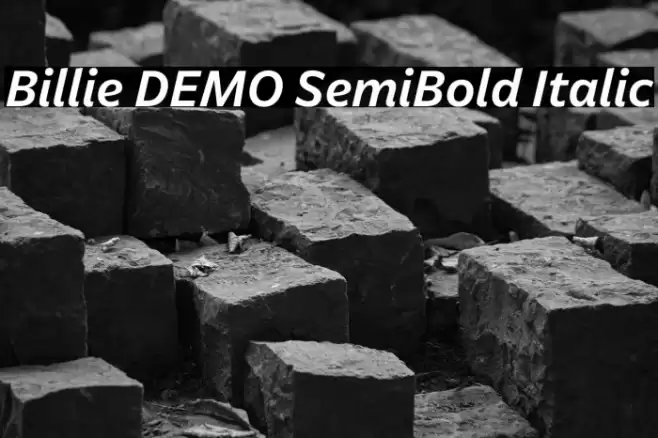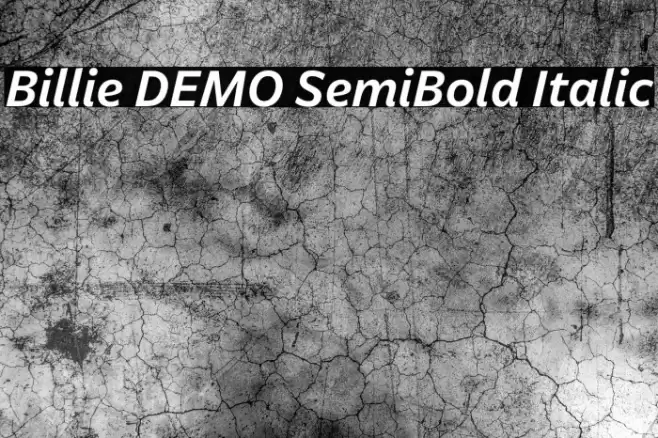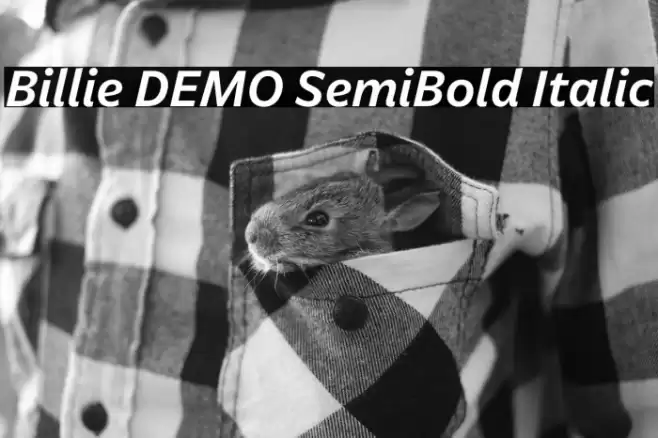
Billie DEMO SemiBold Italic Font
Billie DEMO SemiBold Italic Description
This font features a sleek and modern design with a semi-bold weight and italic style. The characters are slightly slanted, giving a dynamic and forward-moving appearance. The strokes are consistent, with medium contrast, providing a clean and professional look. The uppercase and lowercase letters are well-proportioned, and the numerals are clear and easy to read. Special characters are distinct and match the overall style, making this font versatile for various applications.
A modern, semi-bold italic font with medium contrast and dynamic style from Uncategorized fonts.
- Proposed Projects: Ideal for branding, advertising, and editorial design projects where a modern and professional look is desired.
- Use Case: Headlines, Logos, Branding